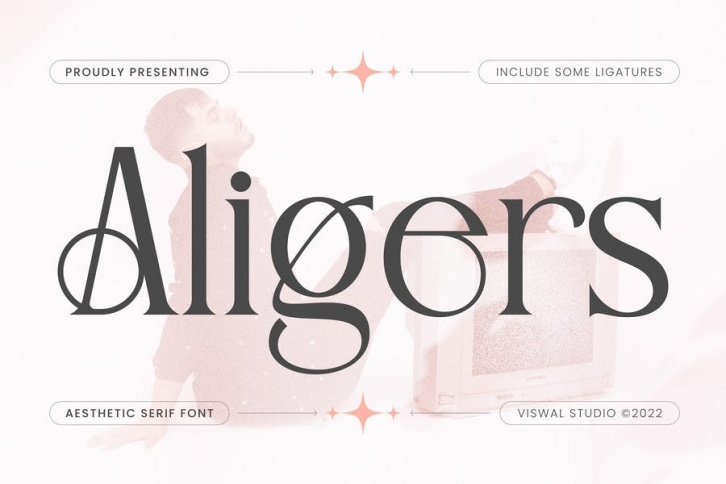
Presenting Aligers - Modern Font is suitable for Logo, Magazine, advertising, branding etc. Our fonts have Uppercase & Lowercase, Numeral & Punctuation, Multilingual support and Opentype Features. For Amazing designs you can mix with other fonts as a complement.